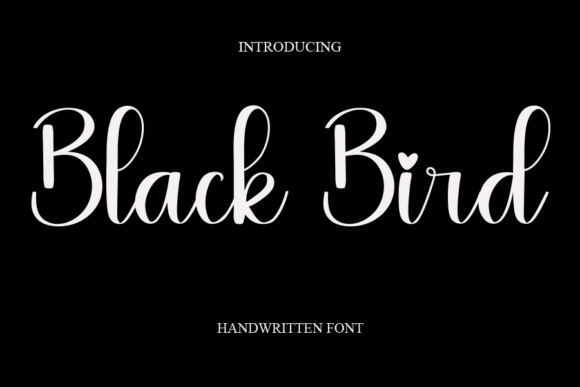
Journey into a realm where creativity flourishes and imagination knows no bounds. Black Bird Font, a playful and charming script typeface, awaits your touch. Designed by the renowned Salma Studio, this font exudes an aura of joy and vibrancy that will elevate your designs to new heights.
Crafted with meticulous care, Black Bird Font boasts a unique blend of sophistication and whimsy. Its flowing strokes and playful curves bring a touch of magic to your words, creating an enchanting atmosphere that captures the hearts of young and old alike. Whether you're designing invitations, posters, greeting cards, or any other project that demands a sprinkle of delight, Black Bird Font is your perfect companion.
With its playful personality, Black Bird Font is the ideal choice for capturing the essence of childhood. Imagine your little ones' eyes sparkling with joy as they receive invitations adorned with Black Bird's enchanting characters. Let their imaginations soar as they explore a world of enchantment, where dreams come alive, and possibilities are endless.